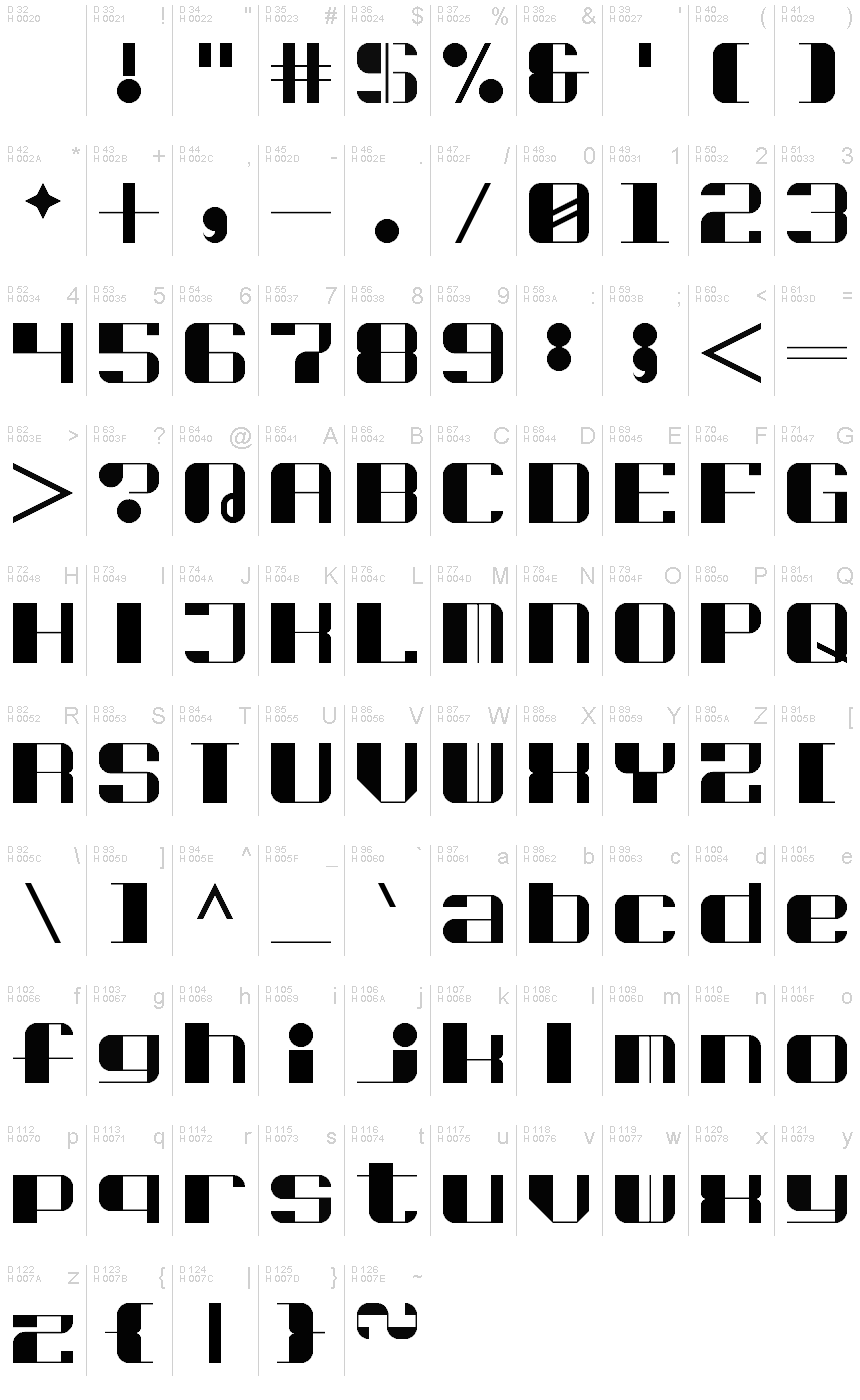
Gongclonker Regular
“Gongclonker” was built with FontStruct
Designer description: For my 300th Fontstruction, a more open and airy deco style than those I usually make. It has a strong sense of the "negative space has been sliced out" look about it which I tend toward in an art deco design.
Even though this is legible at a small size, I consider it a display font since many of its details are subtle. In retrospect I think this looks slightly Broadway-ish... but, this was just my attempt at a 5x5 deco.